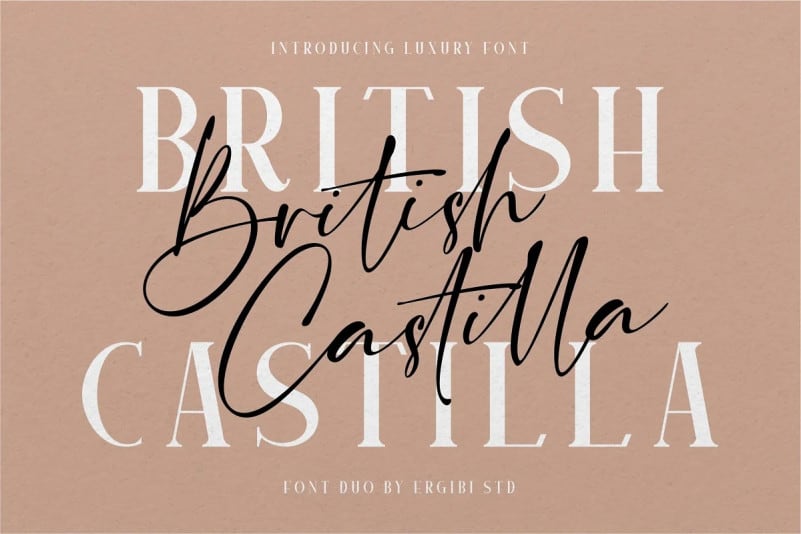
British Castilla Font
British Castilla Script Font is a new casual modern script typeface. designed to work together in harmony, to produce a plethora of beautiful, sophisticated & feminine designs. This typeface has been made carefully to make sure its premium quality and luxury feel.
Perfectly for headlines, logos, posters, packaging, T-shirts,coffee shops, restaurants, magazine’s headers, signs or gift/post cards,cafe’s and weddings or any type of advertising purpose.